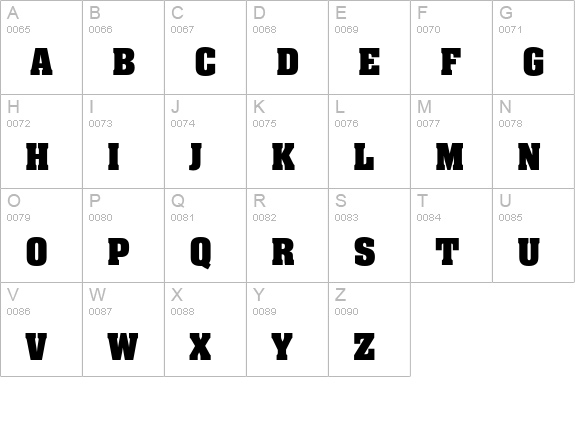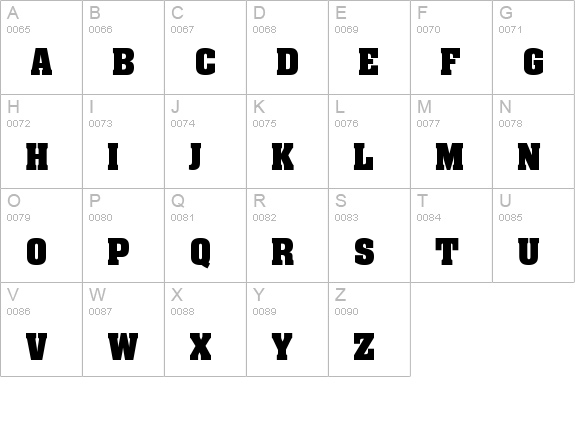
Aachen Bold Plain Font Details
Aachen Bold Plain is a strong, high-contrast variant in the Aachen typeface family \xE2\x80\x94 well suited to headlines, attention-grabbing titles, and strong calls-to-action.
Aachen Bold Plain font is a classic and versatile typeface that exudes strength and confidence. Its bold and clean lines make it perfect for eye-catching headlines, titles, and logos. With its timeless appeal, Aachen Bold Plain font adds a touch of sophistication to any design. One of the best things about Aachen Bold Plain font is that it is free! You can easily download it at FontsMarket.com, a trusted source for high-quality fonts. Whether you are a professional designer or a casual user, this font is readily available for you to use in your projects without any cost. The simplicity and elegance of Aachen Bold Plain font make it suitable for various design styles, from modern to vintage. Its distinct letterforms create a strong visual impact, making your message stand out and leave a lasting impression on your audience. Aachen Bold Plain font is meticulously crafted to ensure legibility and readability, even at smaller sizes. Its well-defined characters and balanced spacing make it easy to read both on screen and in print. This font is perfect for brochures, flyers, posters, and any other design that requires clear and concise communication. Whether you are designing for print or digital media, Aachen Bold Plain font offers exceptional versatility. It complements both serif and sans-serif typefaces, allowing you to create visual harmony and balance in your designs. Its bold weight gives it a commanding presence, making it ideal for headlines and titles that demand attention. In addition to its aesthetic appeal, Aachen Bold Plain font is also highly functional. It supports a wide range of languages and characters, ensuring that you can effectively communicate your message to a global audience. The font is also compatible with various design software, making it easy to integrate into your workflow. Overall, Aachen Bold Plain font is a reliable and versatile typeface that combines timeless elegance with modern functionality. Its bold and clean design, along with its wide range of applications, makes it a valuable asset for any designer. Best of all, it is freely available to download at FontsMarket.com, allowing you to enhance your designs without breaking the bank.